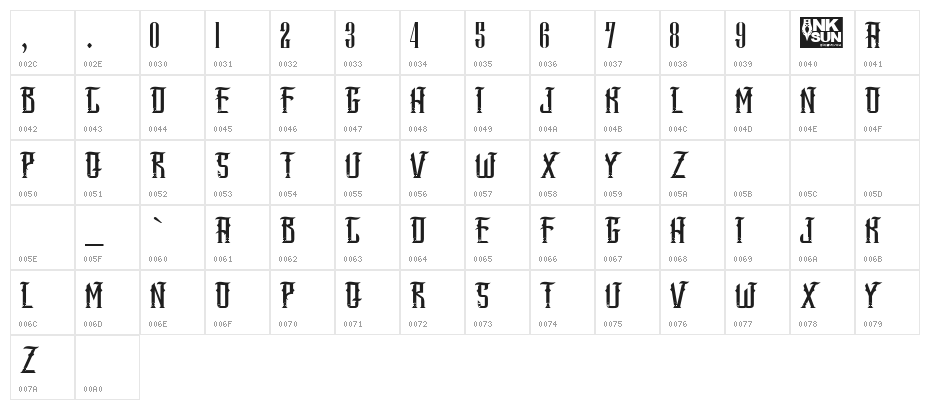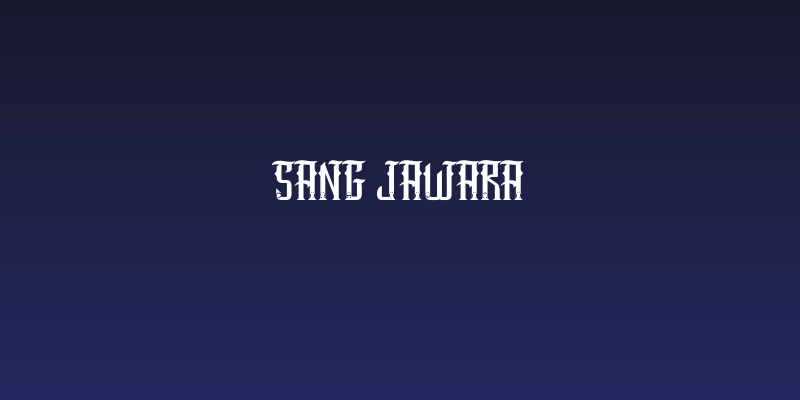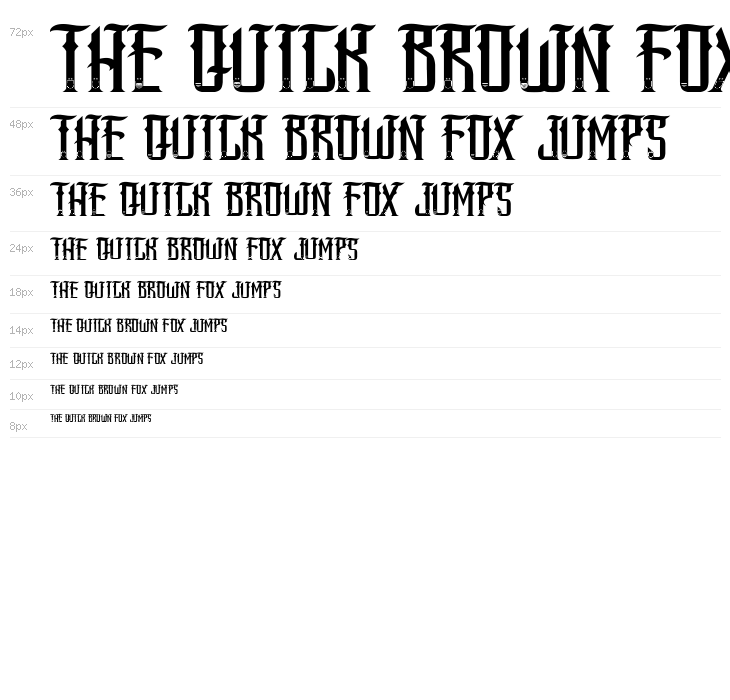
SANG JAWARA Font
SANG JAWARA Description
This font features a bold and striking design with a distinct blackletter style, characterized by sharp, angular lines and intricate detailing. The uppercase letters exhibit a gothic influence, with elongated verticals and decorative serifs that give it a medieval appearance. The numerals are equally bold, maintaining the same angular aesthetic. The overall design is highly decorative, making it suitable for projects that require a dramatic and historical touch.
| Proposed Projects | Ideal for use in branding, posters, album covers, and any project requiring a dramatic, historical aesthetic. |